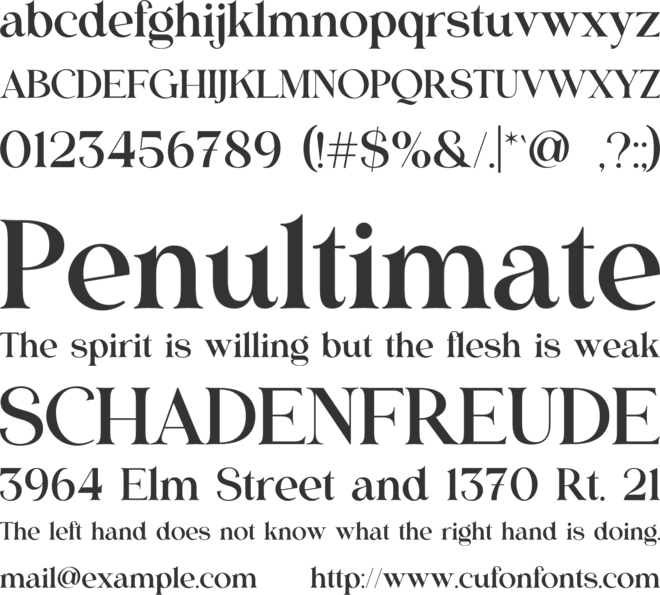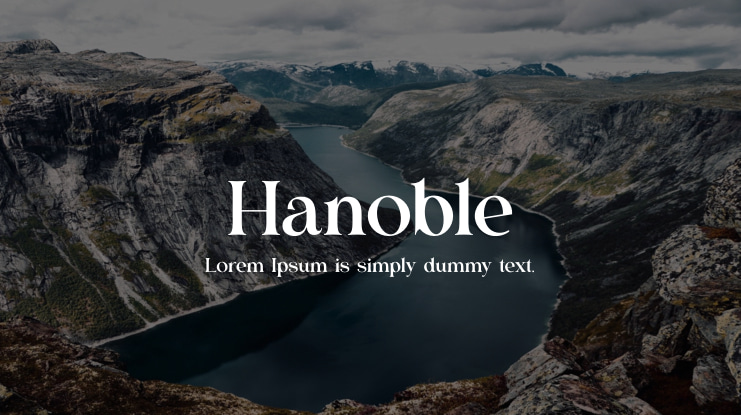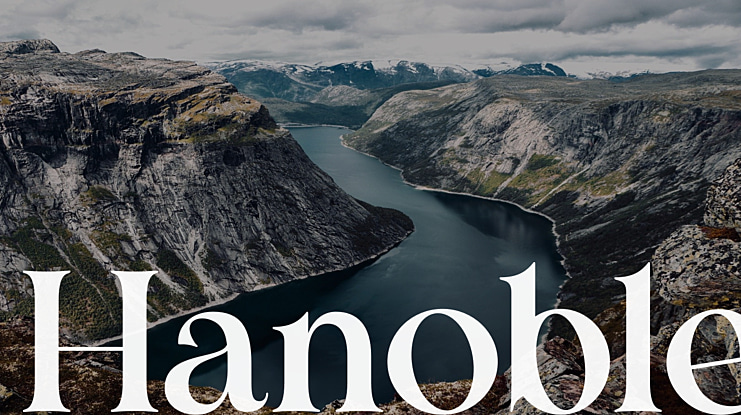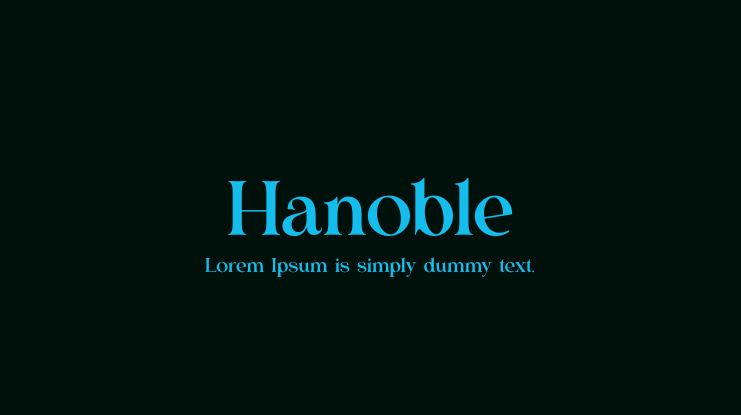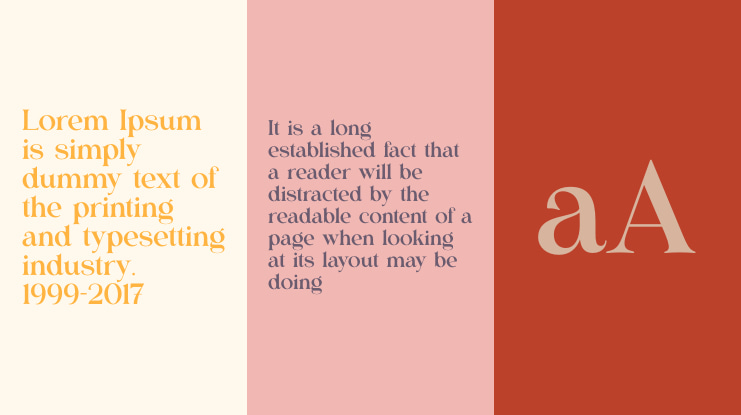
Hanoble Font
Yuge Afrianto
Hanoble is a stylish modern font with ligature-rich Serif. Minimalist character that allowing you to easily edit the designs. It is perfect for branding, wedding invites and cards, and maybe for some project.
150 Special ligatures